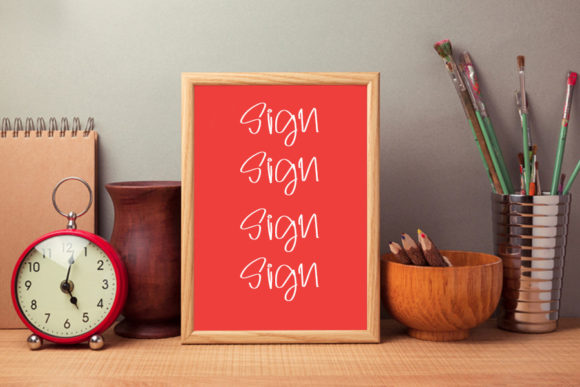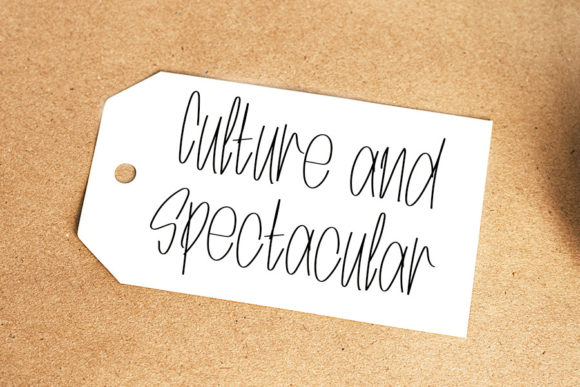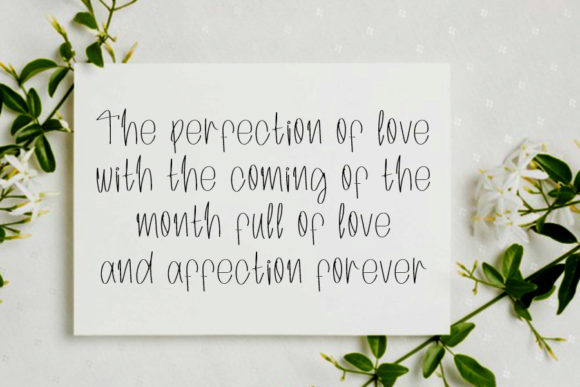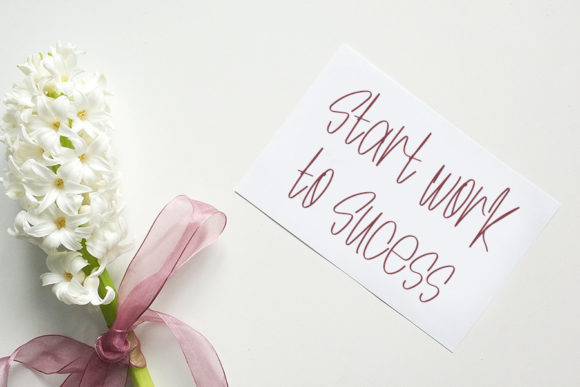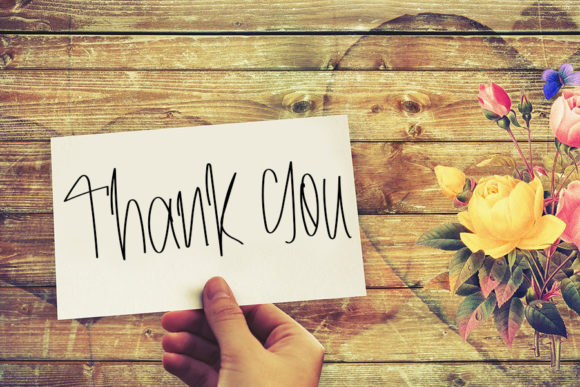
Archive Signature Font
About Archive Signature Font
Archive Signature is a thin and fashionable handwritten font. Not too thin and not too thick, balanced and varied, this font was designed to enhance the beauty of your projects.